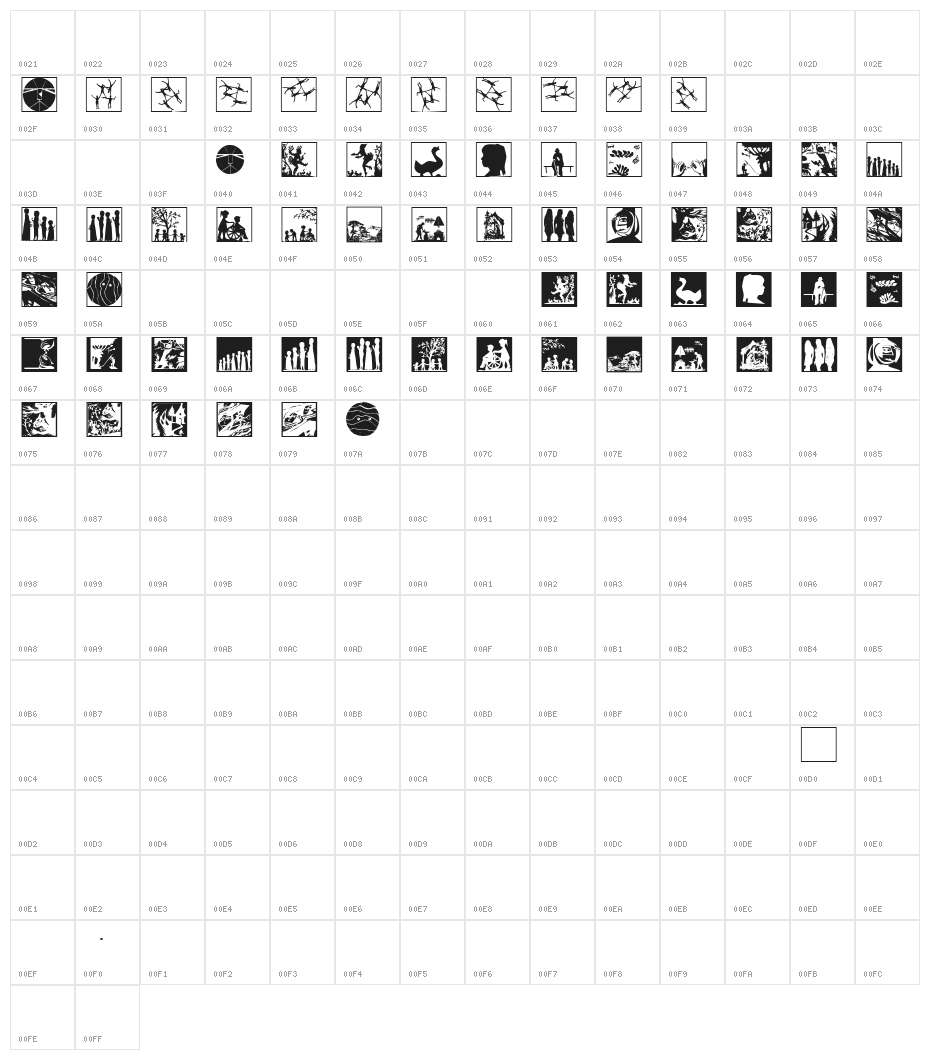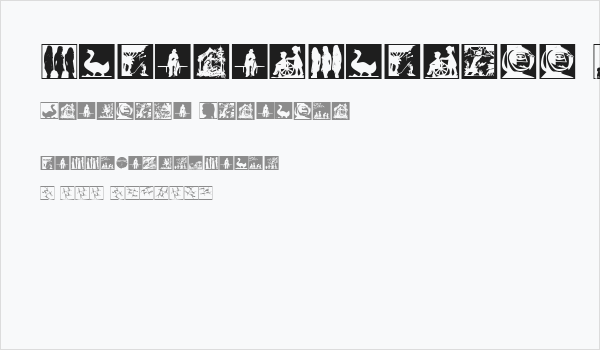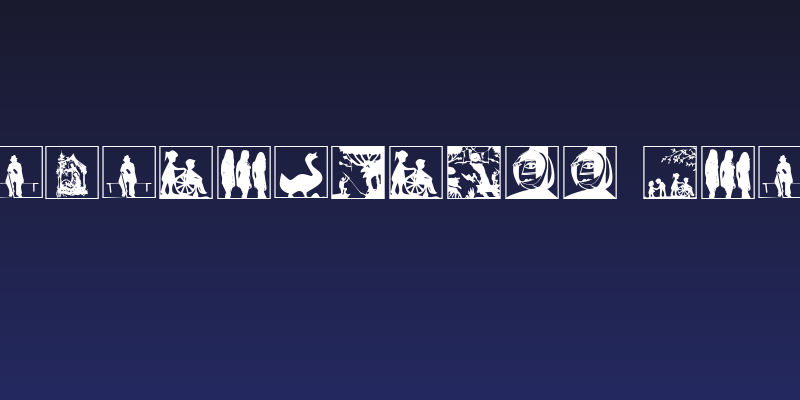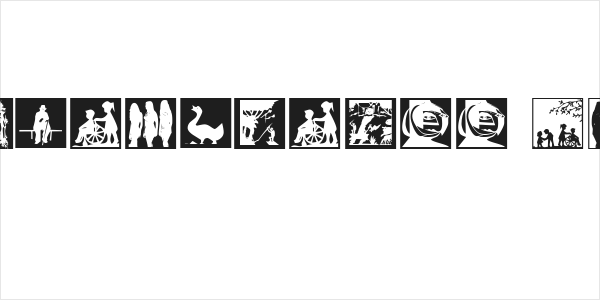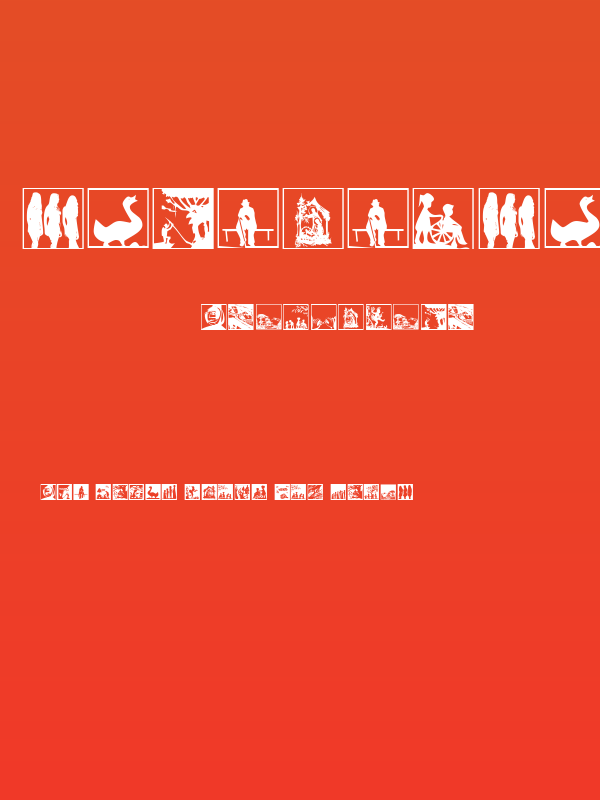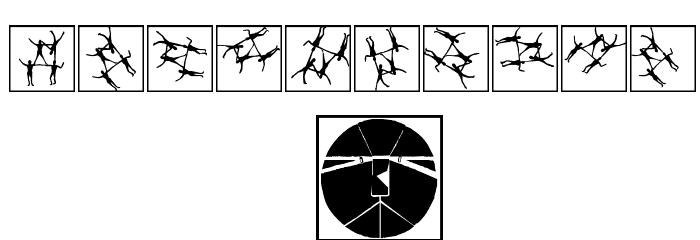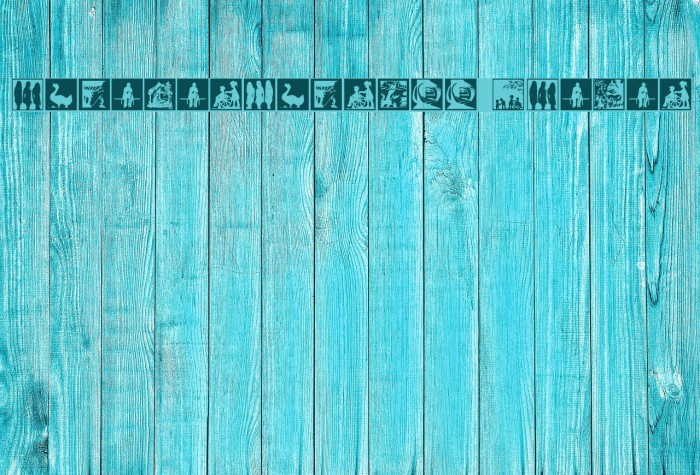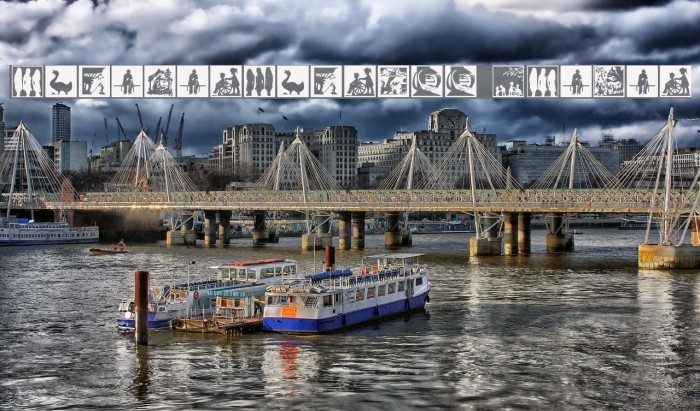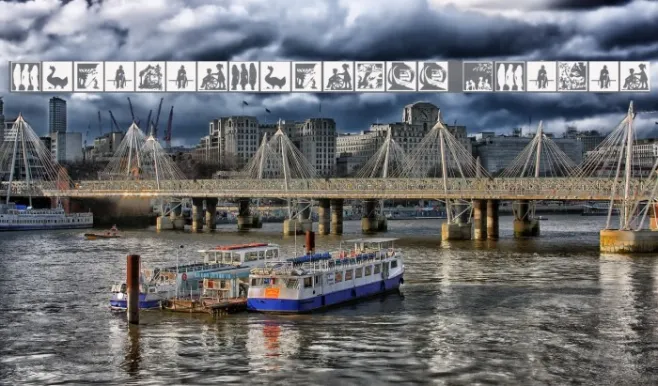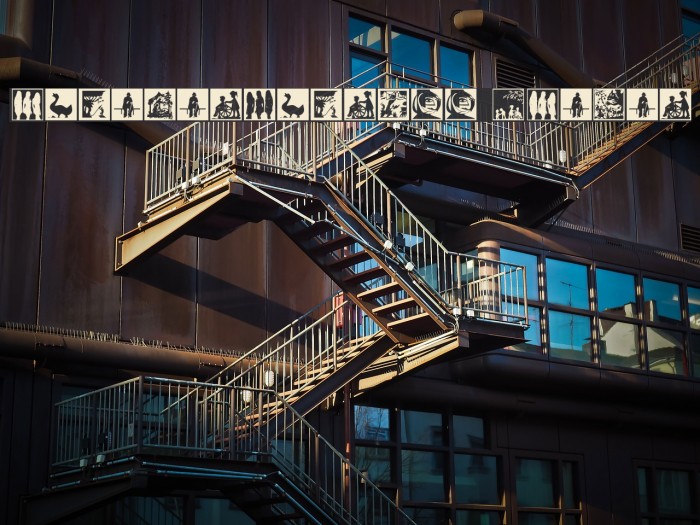
Scherenschnitt OSeven Font
Scherenschnitt OSeven Description
A highly decorative, pictorial font where each character is represented by an intricate black-and-white silhouette illustration, reminiscent of traditional paper cutting art. The glyphs feature scenes with people, animals, landscapes, and abstract shapes, all enclosed in square frames.
| Overall Style | Decorative, Artistic, Folk-inspired |
| Use Case | Display titles, Posters, Artistic projects, Themed branding |
| Proposed Projects | Children’s books, art posters, invitations, themed event graphics, storytelling visuals. |